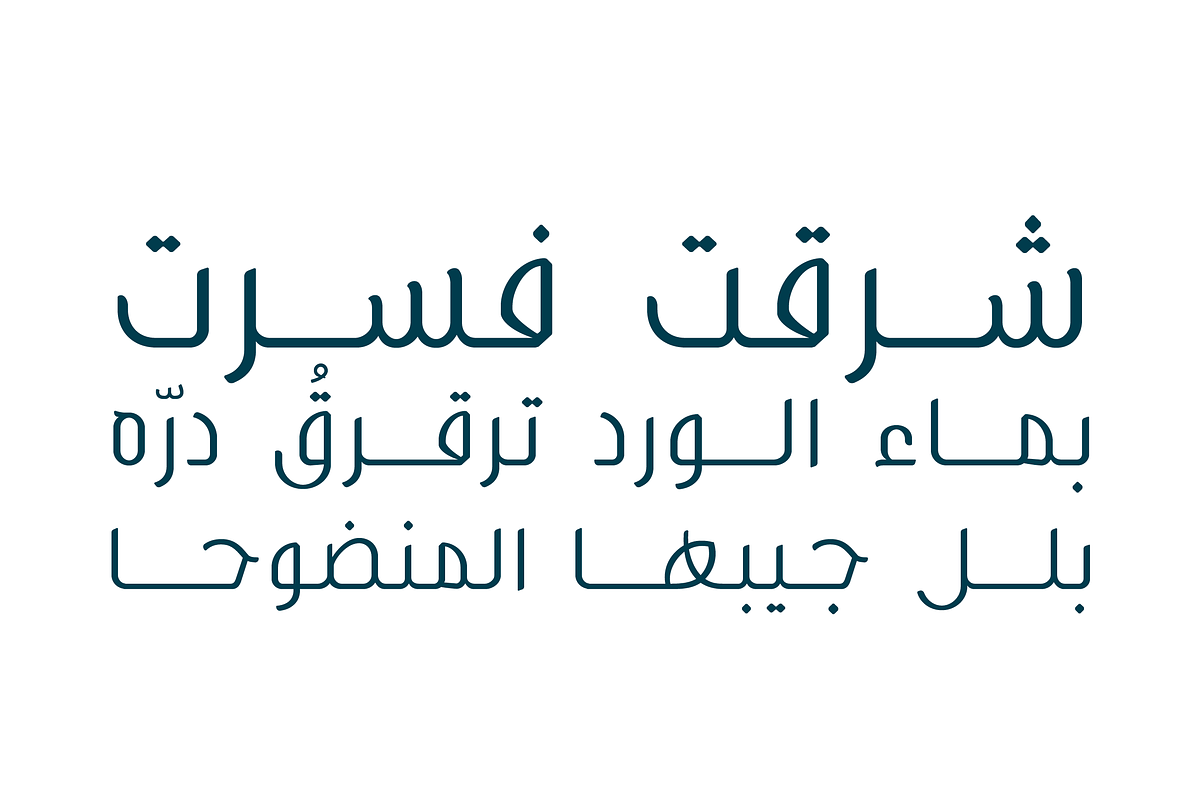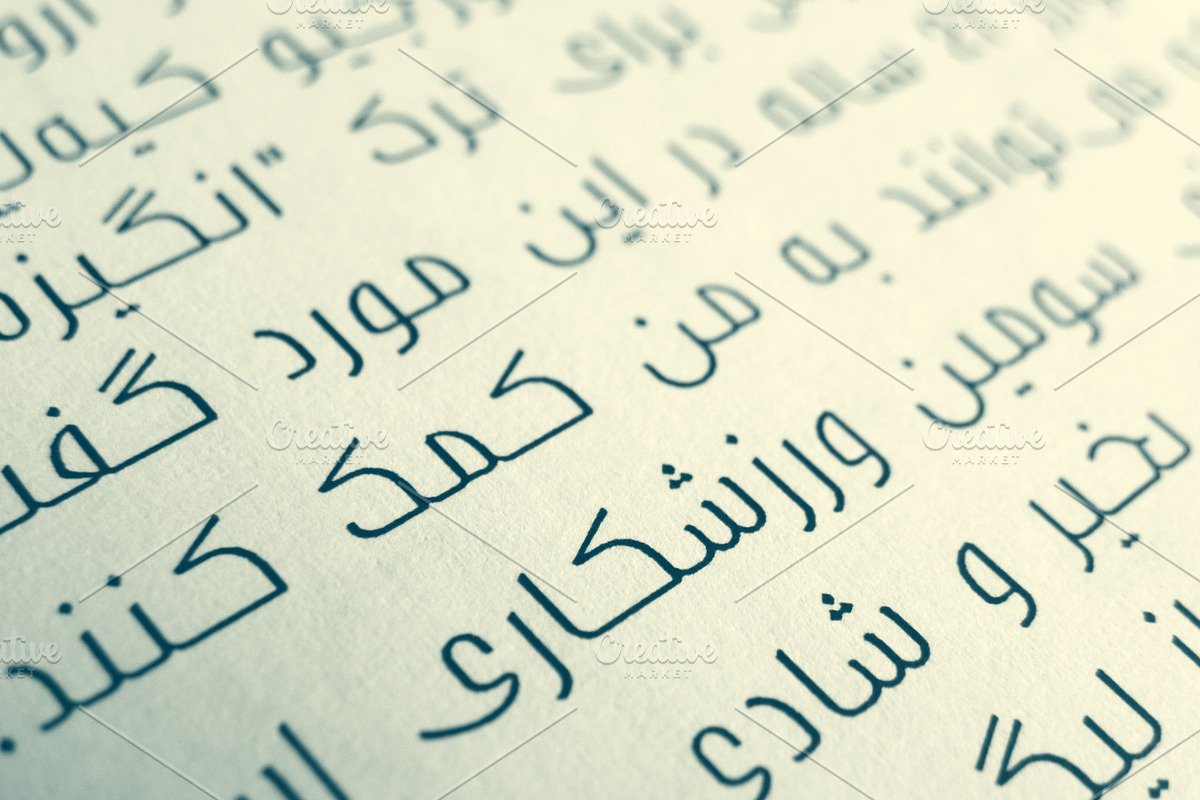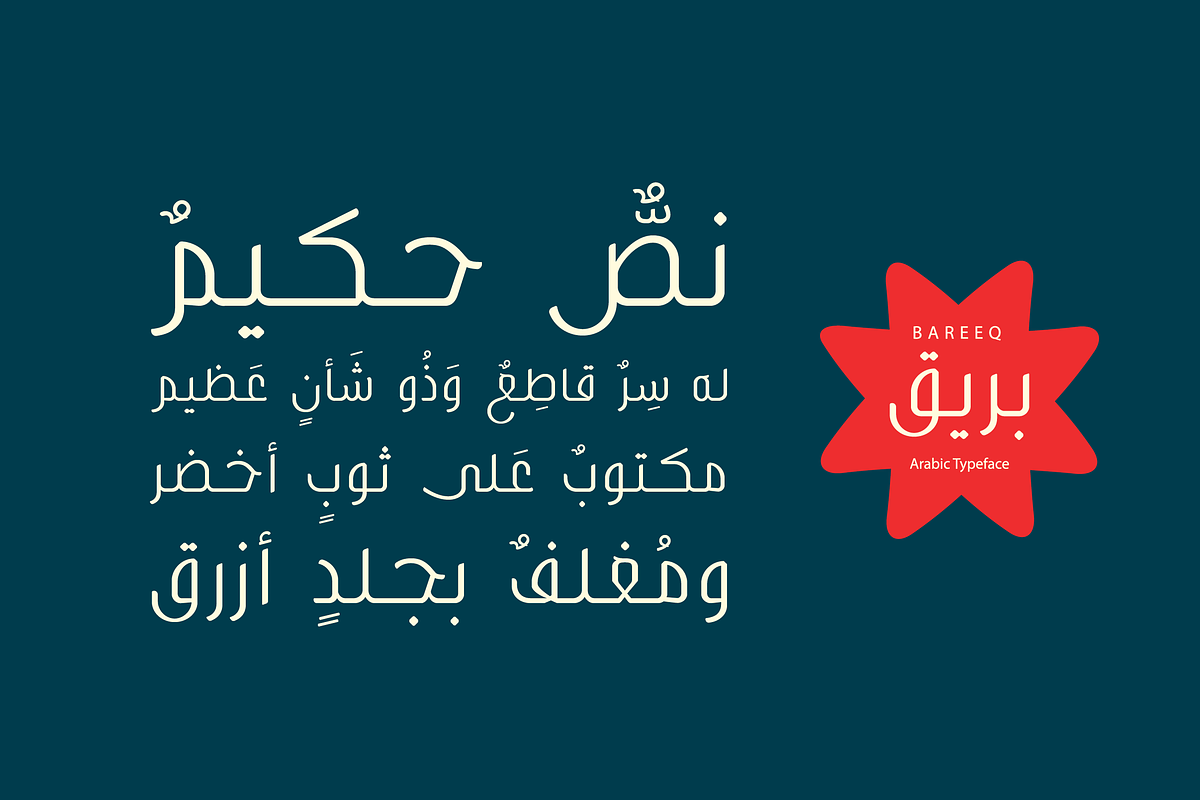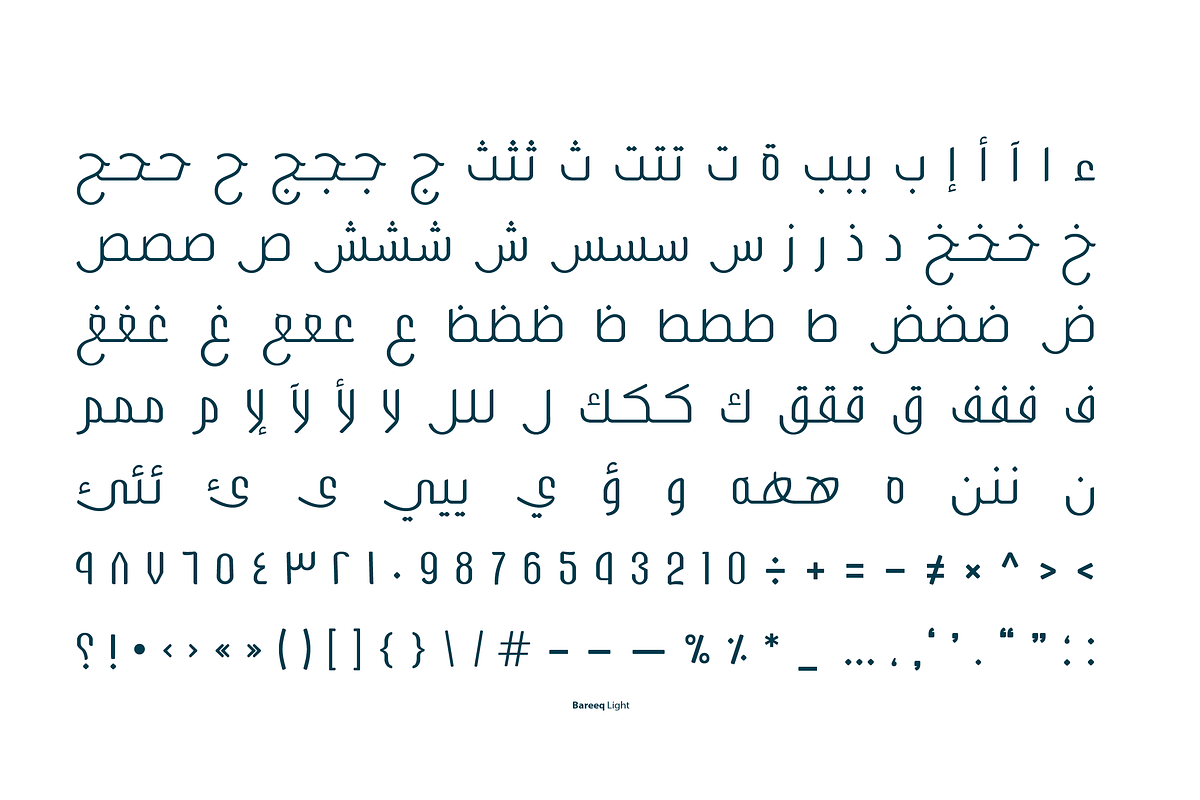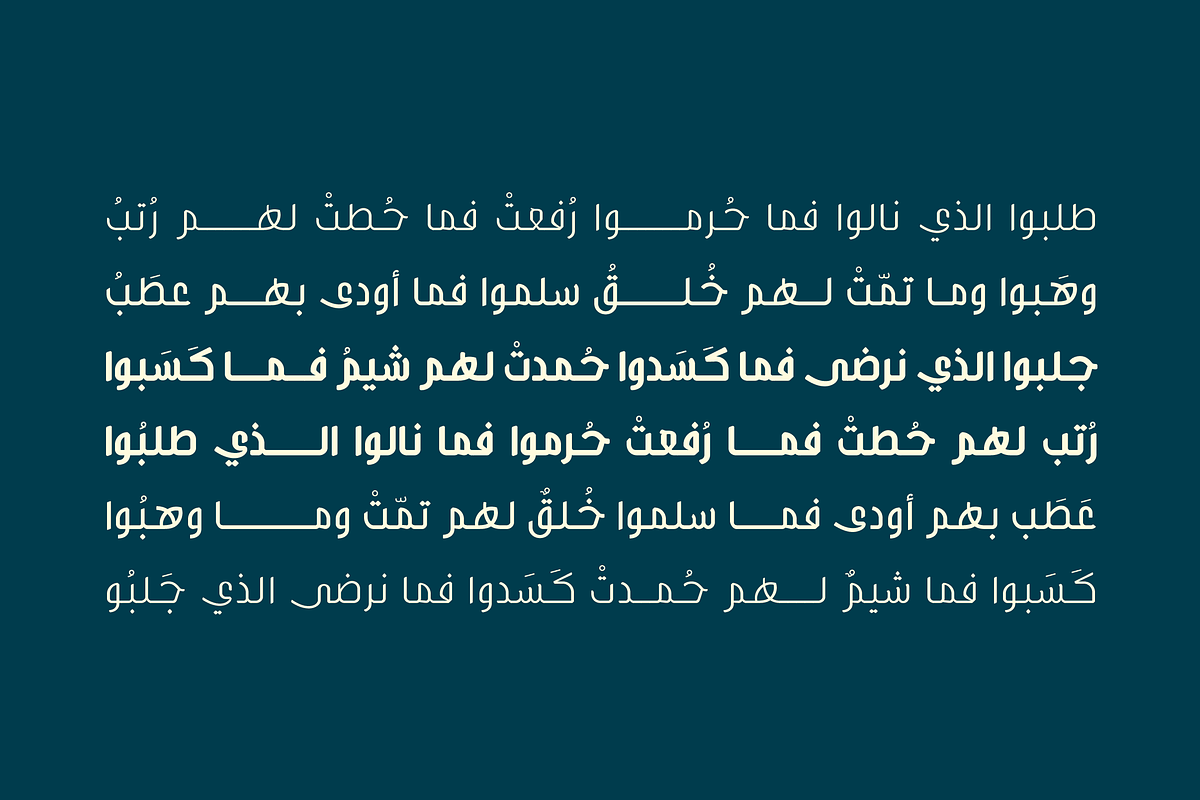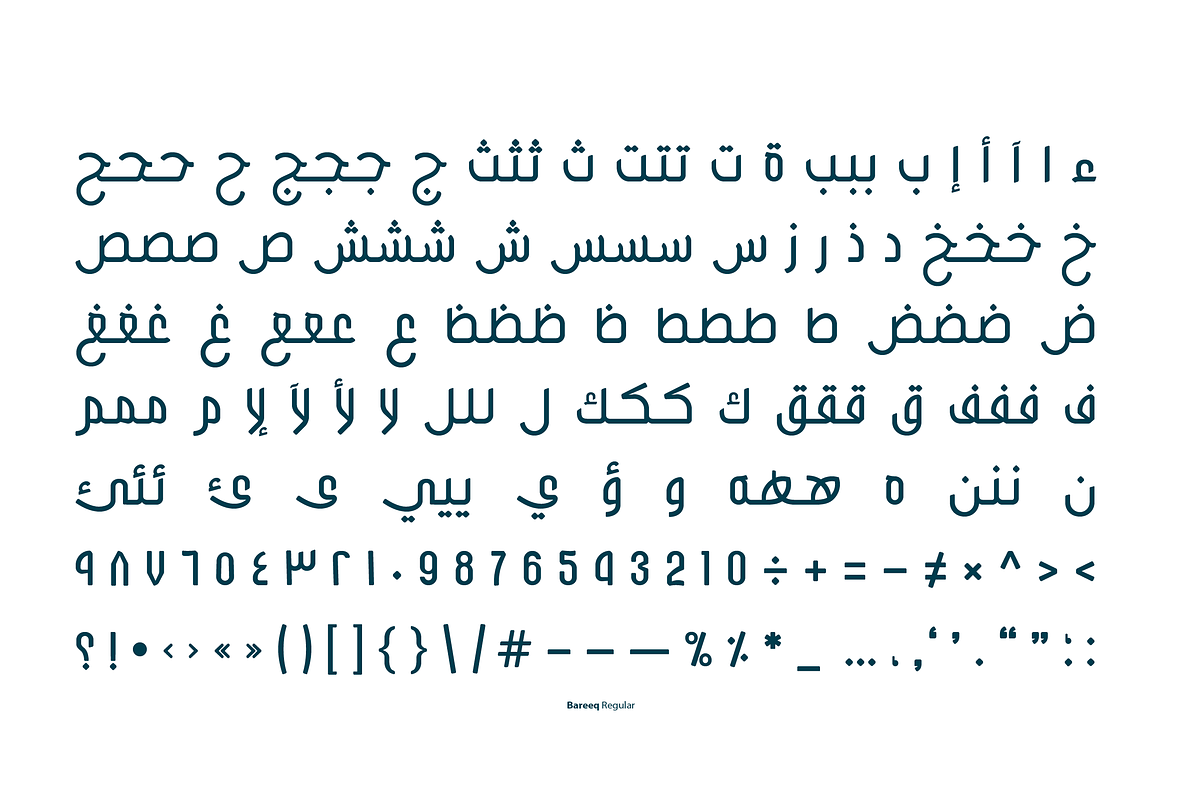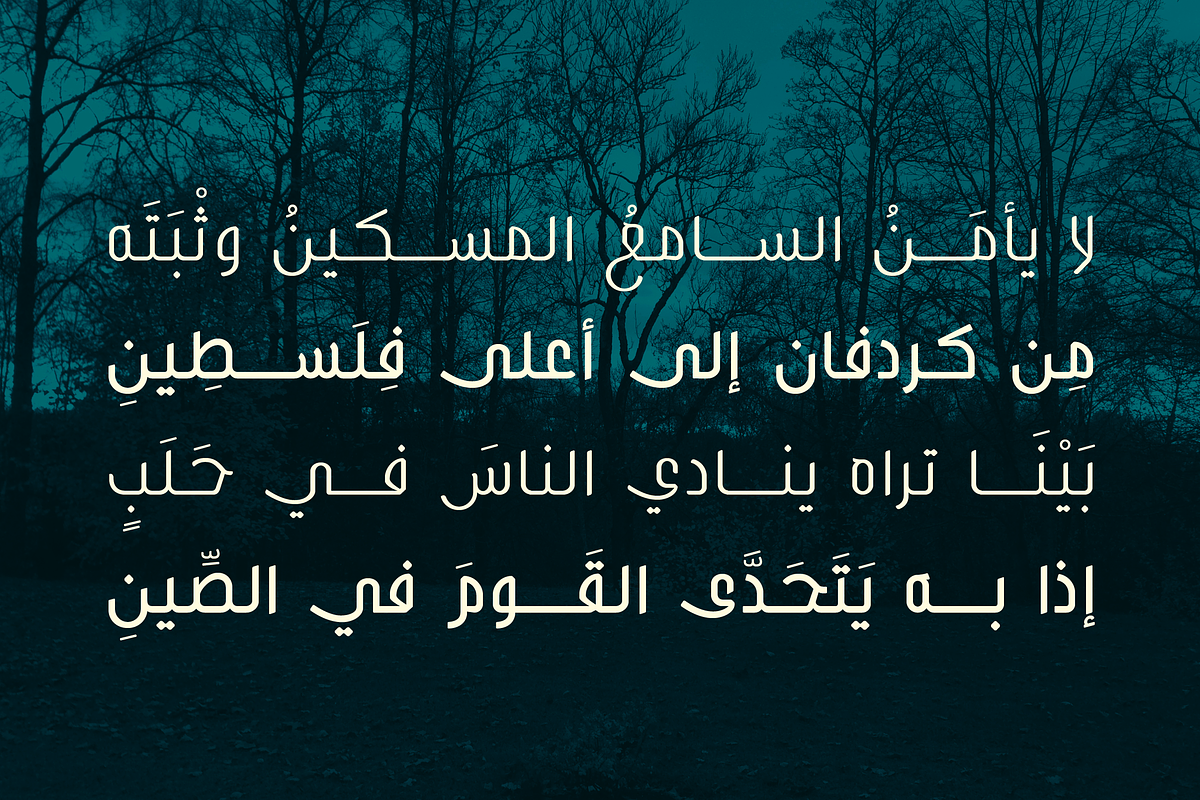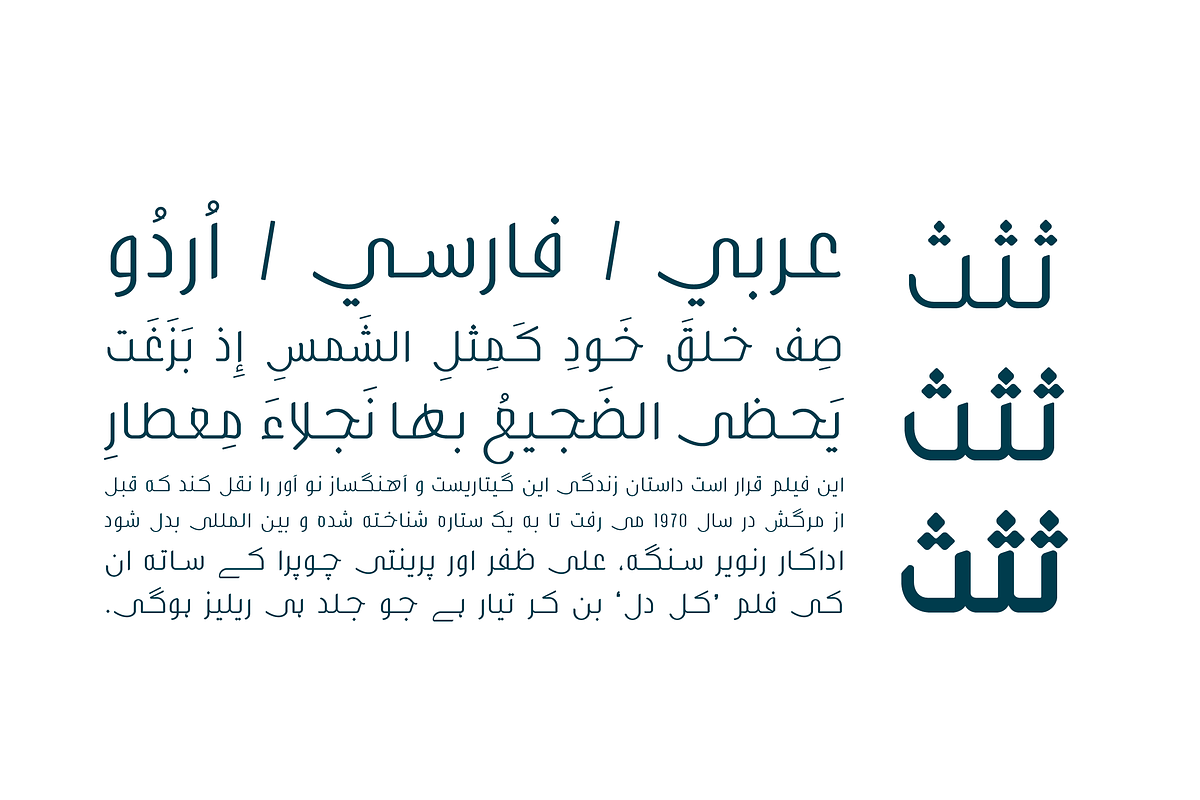
Bareeq - Arabic Font | خط بريق
Bareeq - Arabic Font | خط بريق by Mostafa El Abasiry is a font selected for branding, posters, packaging, typography.
- Bareeq Light
- Bareeq Regular
- Bareeq Bold
Why Bareeq - Arabic Font | خط بريق is worth a look
Bareeq - Arabic Font | خط بريق by Mostafa El Abasiry fits naturally into Branding, posters, packaging, typography.